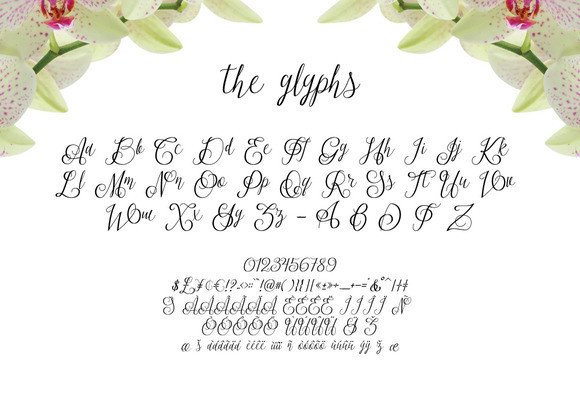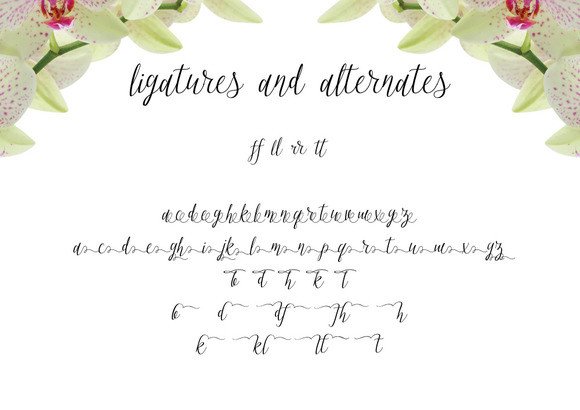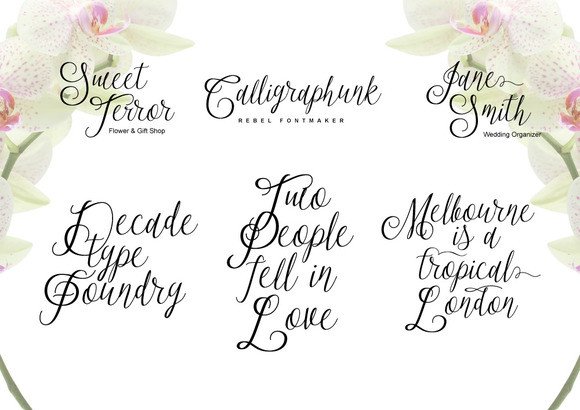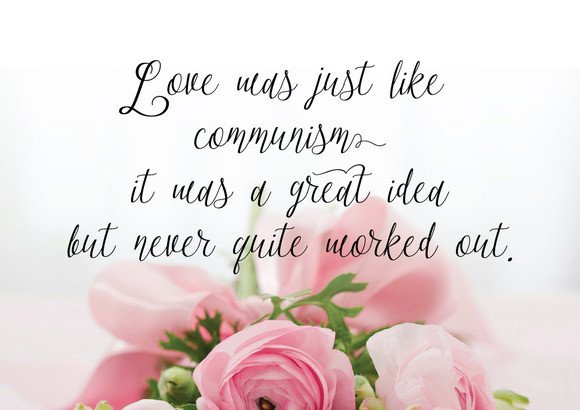
Introduction to Manglayang Font
As I sat at my desk, surrounded by scraps of paper and half-finished designs, I was searching for the perfect font to elevate my creative project. I wanted something that would make my designs stand out, something that would add a touch of romance and whimsy. And then, I stumbled upon the Manglayang Font – a beautiful, thin script that seemed to dance across the page.
At first glance, the Manglayang Font may seem like just another design resource, but trust me, it’s so much more. With its high-quality, delicate lines and transparent background, this font is perfect for adding a touch of elegance to your designs. Whether you’re working on a bridal project, a wedding invitation, or simply a creative piece for fun, the Manglayang Font is a valuable addition to your design toolkit.
Key Features of Manglayang Font
- Unique, hand-drawn design: The Manglayang Font is a one-of-a-kind, hand-drawn design perfect for adding a personal touch to creative projects.
- Perfect for creative projects: The Manglayang Font is ideal for use in creative projects, such as branding, packaging, and advertising, where a unique and eye-catching design is essential.
Honest Review: Manglayang Font
I recently had the chance to work with the Manglayang Font, and I must say it’s a great addition to any design resource library. With a free download option, I was able to experiment with it in a creative project without breaking the bank.
- The Manglayang Font has a unique, exotic feel that’s perfect for projects that need a touch of cultural flair.
- It’s highly legible, even with a transparent background, making it a great choice for designs that require a bit of transparency.
- The font is available in a range of weights and styles, giving designers plenty of options to choose from.
- The Manglayang Font may not be suitable for all types of projects, particularly those that require a more modern or minimalist aesthetic.
- The font’s exotic feel may not appeal to everyone, and some designers may find it too ornate or distracting.
Overall, I was impressed with the Manglayang Font’s quality and versatility. While it may not be the perfect fit for every project, it’s definitely a useful addition to any design library. With a high quality design and a free download option, it’s definitely worth checking out.
Manglayang Font
Design Tips
To get the most out of the Manglayang Font, use it with a transparent background to create a high-quality design resource. Experiment with different font sizes and styles to add depth and interest to your design.
The Manglayang Font is perfect for creative projects such as logos, brochures, and posters. It’s also great for use in presentations, social media graphics, and other visual content. With its high-quality design and free download option, the Manglayang Font is a valuable resource for designers and non-designers alike.